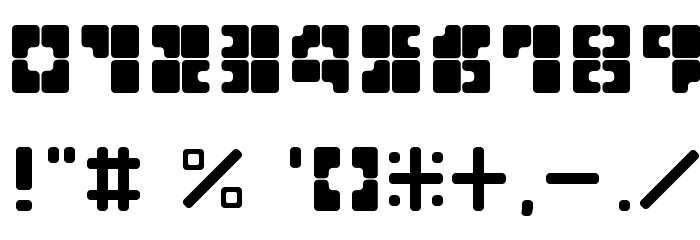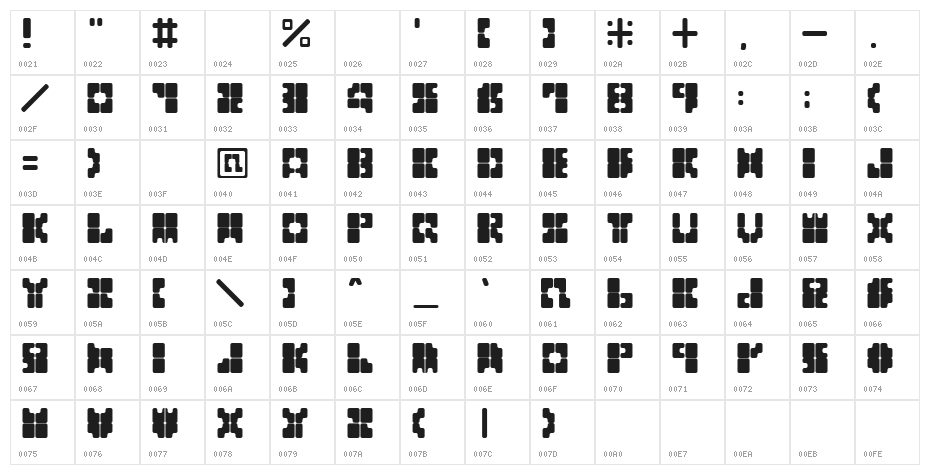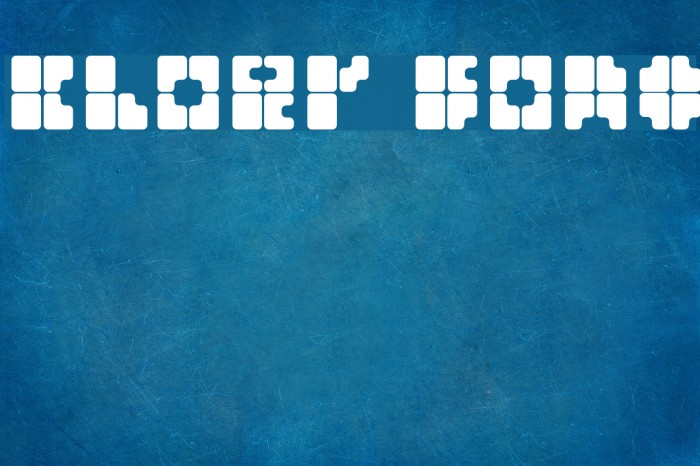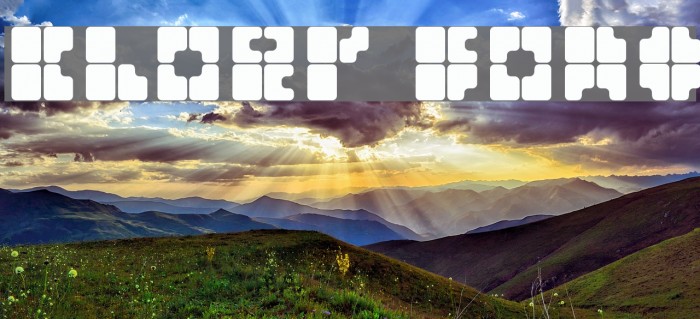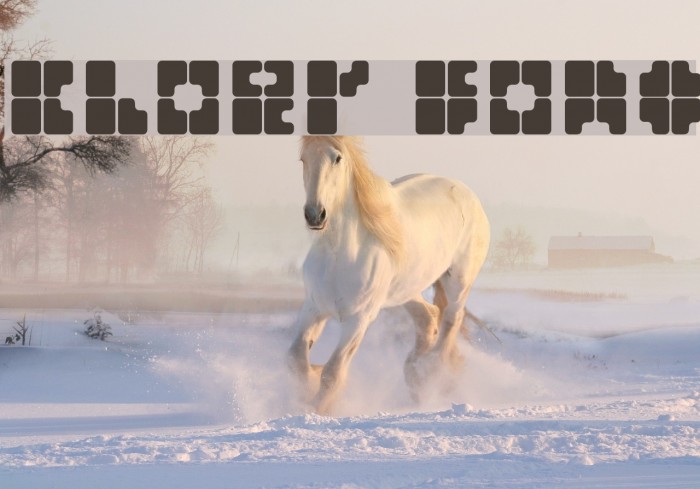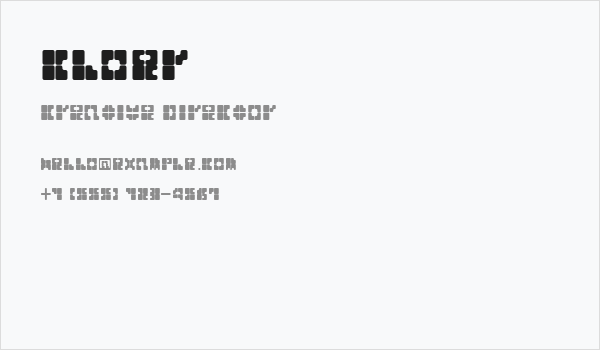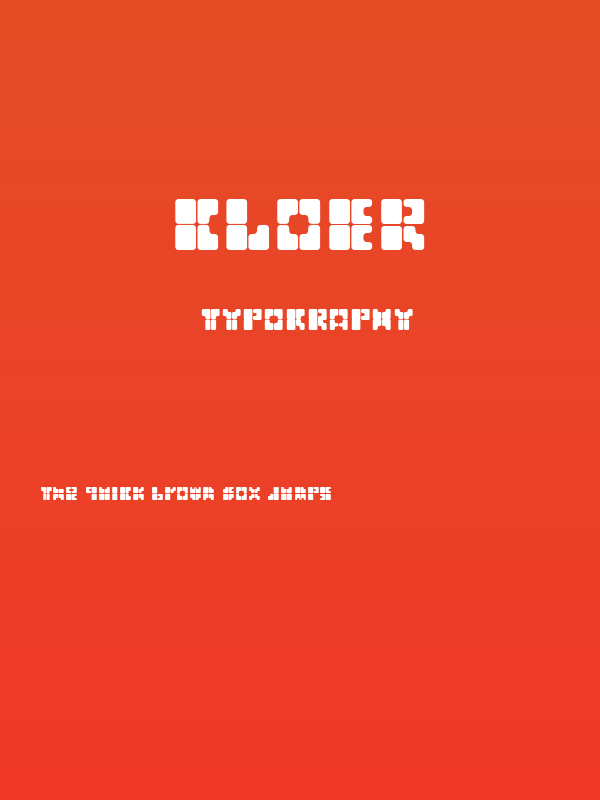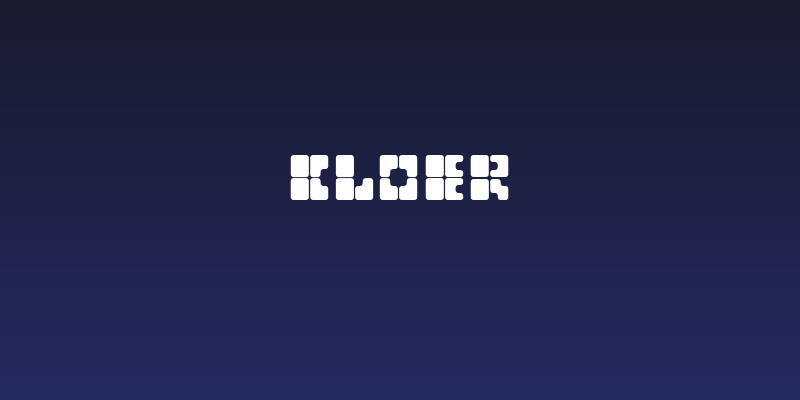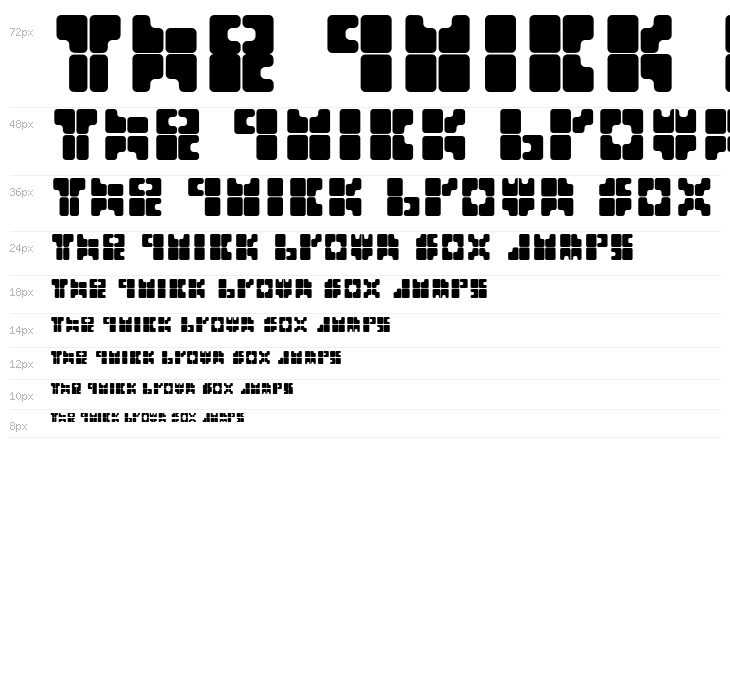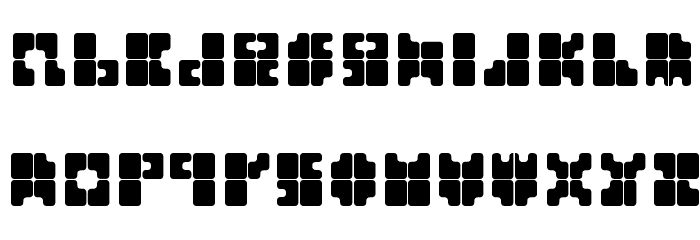
cloer Font
cloer Description
This font features a bold, geometric design with a distinct blocky appearance. Each character is composed of solid, square-like shapes that create a pixelated effect, giving it a modern and digital aesthetic. The uniformity in the design provides a sense of cohesion, while the unique construction of each letter adds a playful and creative touch. The font is highly stylized, making it ideal for projects that require a strong visual impact. Its boldness ensures readability even at smaller sizes, while the geometric forms make it stand out in any design context.
| Proposed Projects | Ideal for digital art, video game graphics, tech-themed posters, and modern branding. |